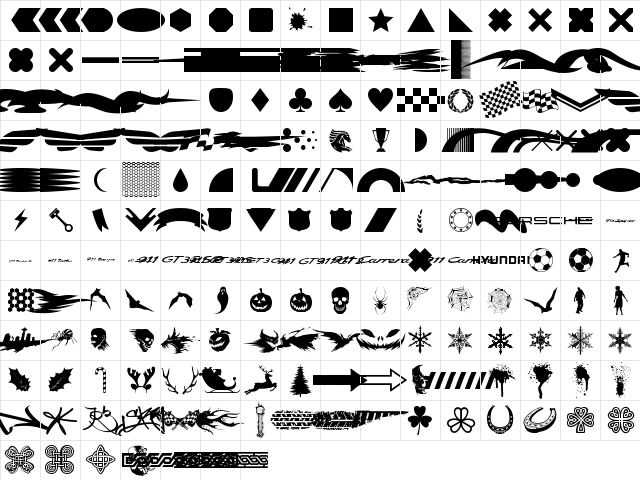
r3_decals Regular Font Preview
r3_decals Regular
r3_decals Regular Font Details
Design Context for r3_decals Typeface
r3_decals is a composed and adaptable typeface that performs quietly and consistently across a wide range of design contexts.